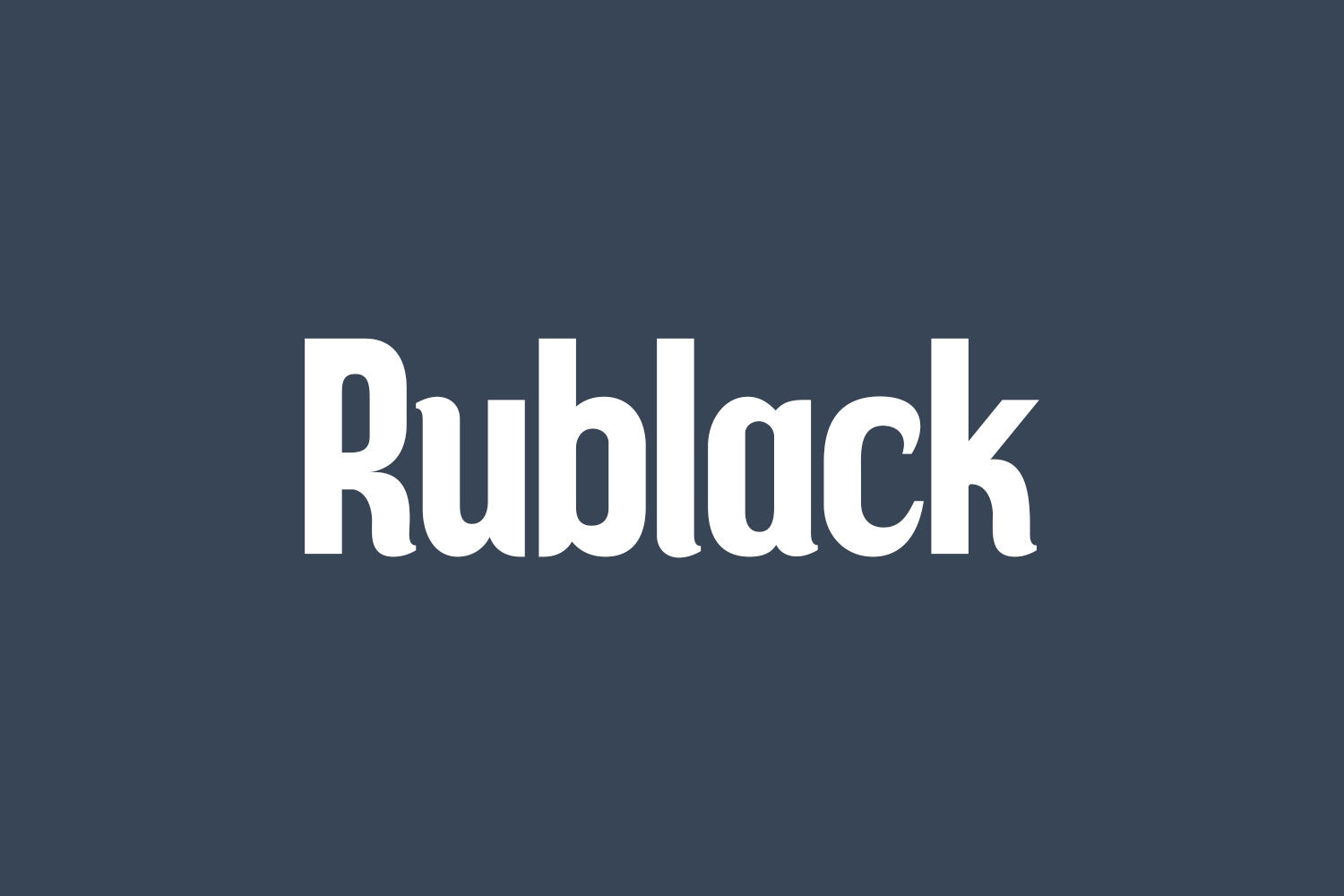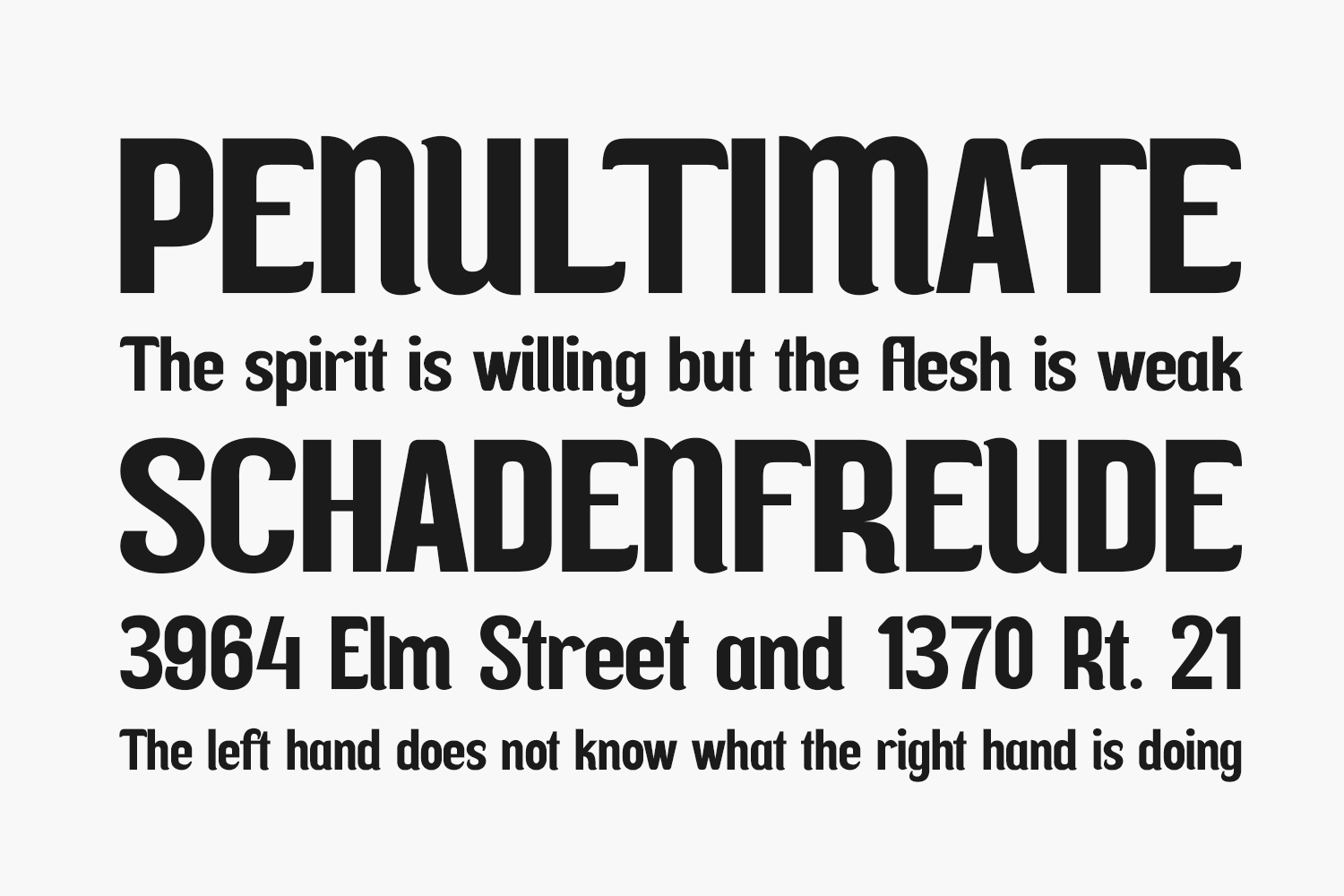
Introducing Rublack Free Font, a contemporary display font tailored for sophistication and style. Ideal for crafting exquisite and luxurious logos, captivating book or movie titles, prestigious fashion brands, chic magazines, fashionable apparel, elegant lettering, inspiring quotes, and countless other creative endeavors. Download the font for free if you need it for personal use or purchase the full version for commercial use.